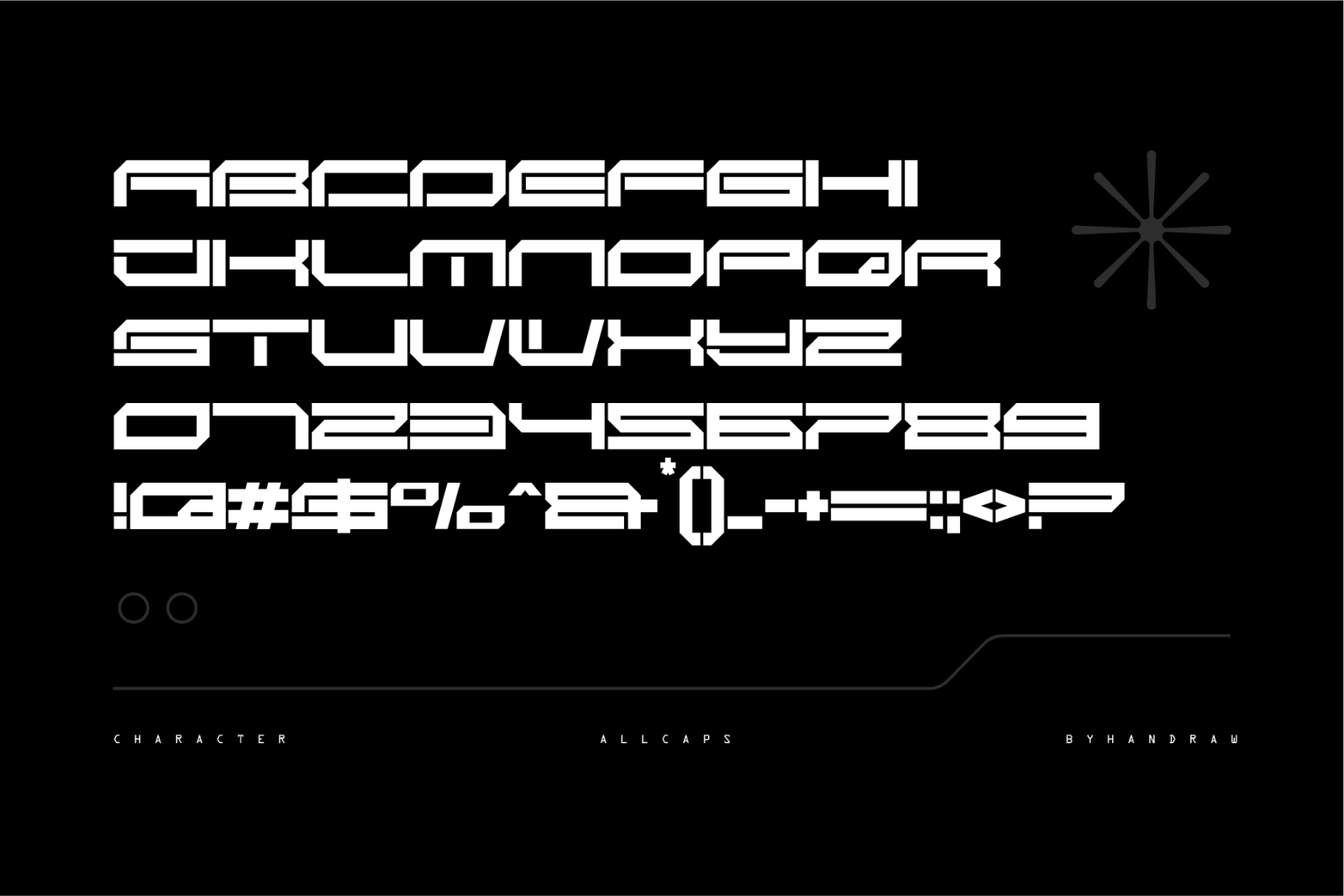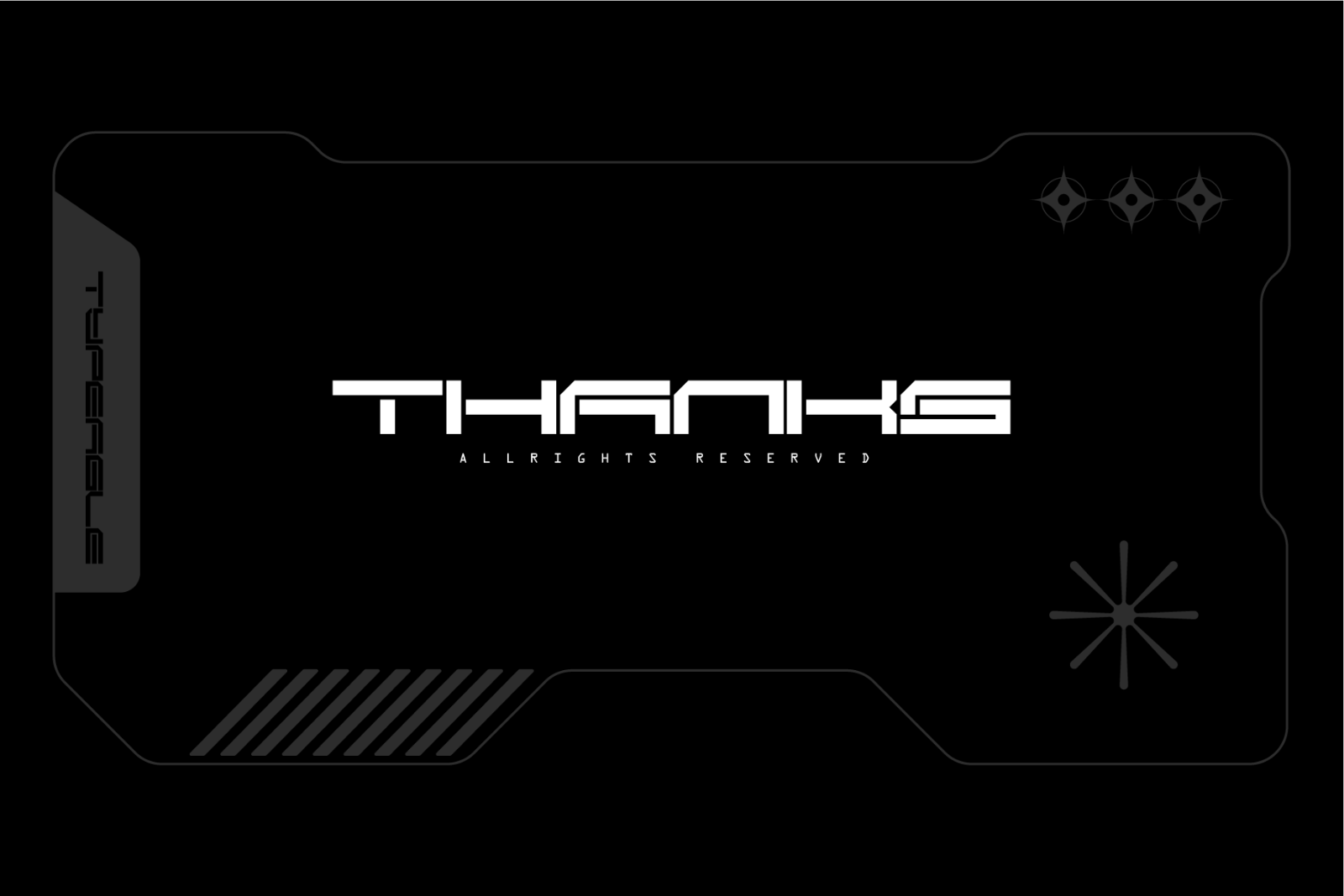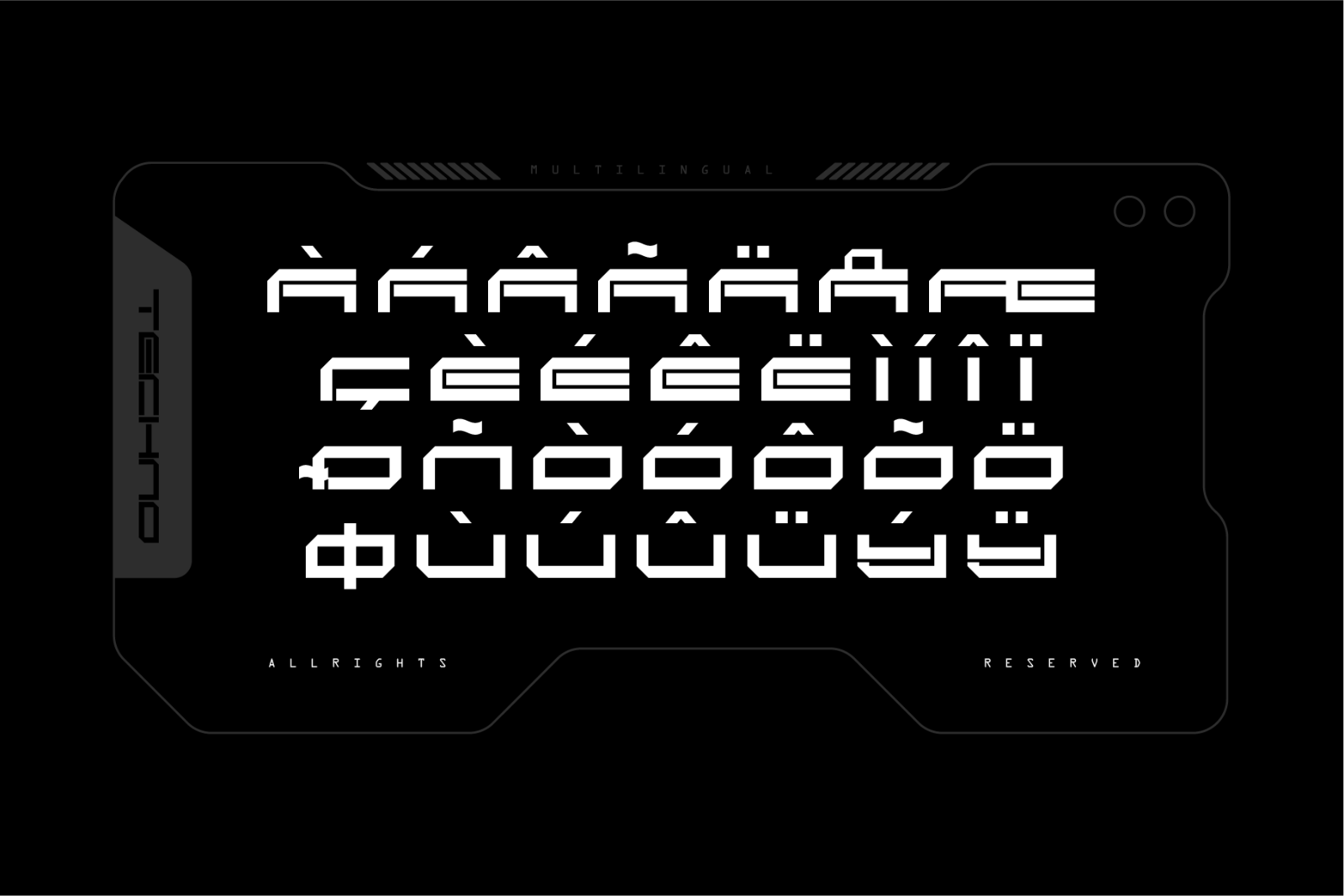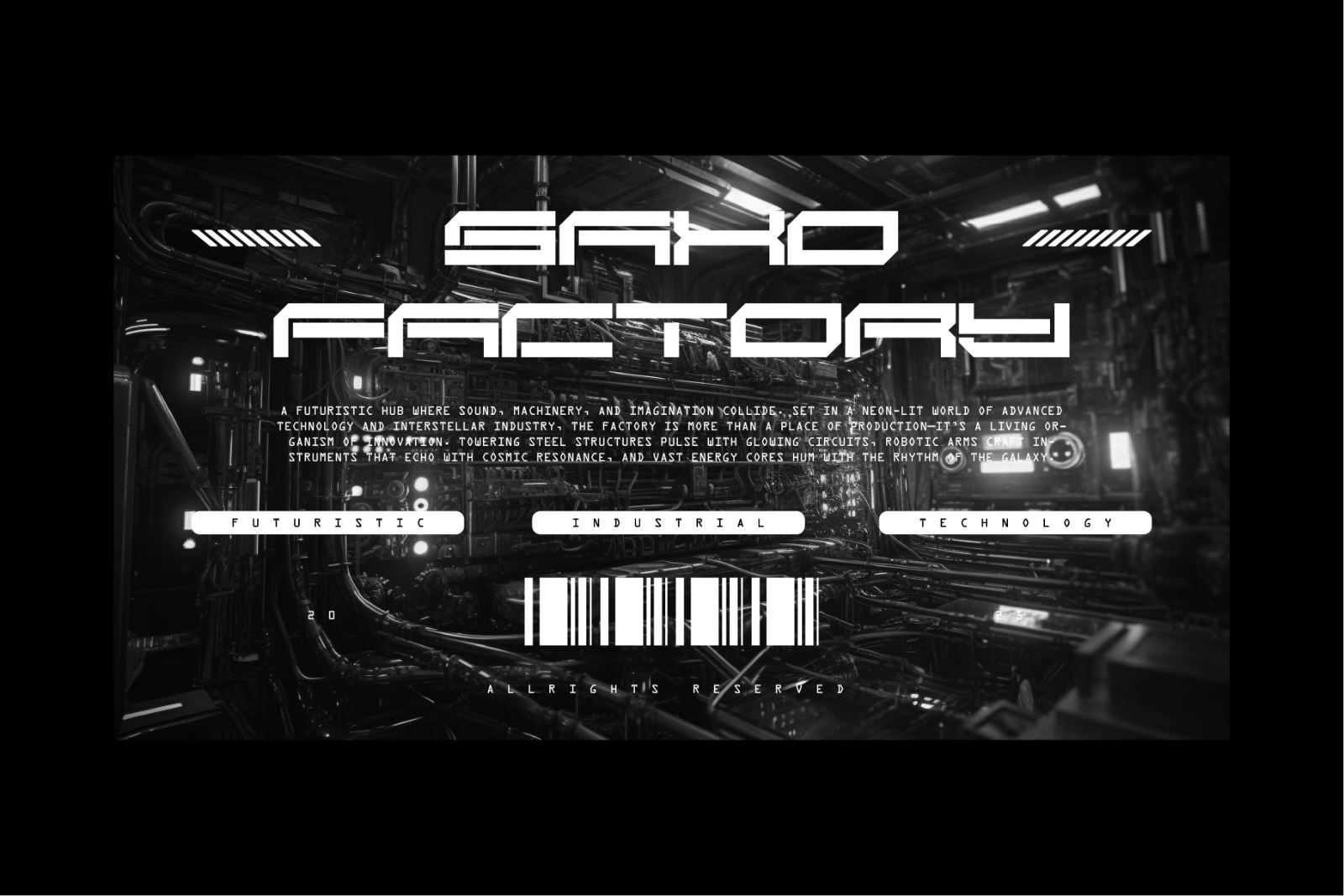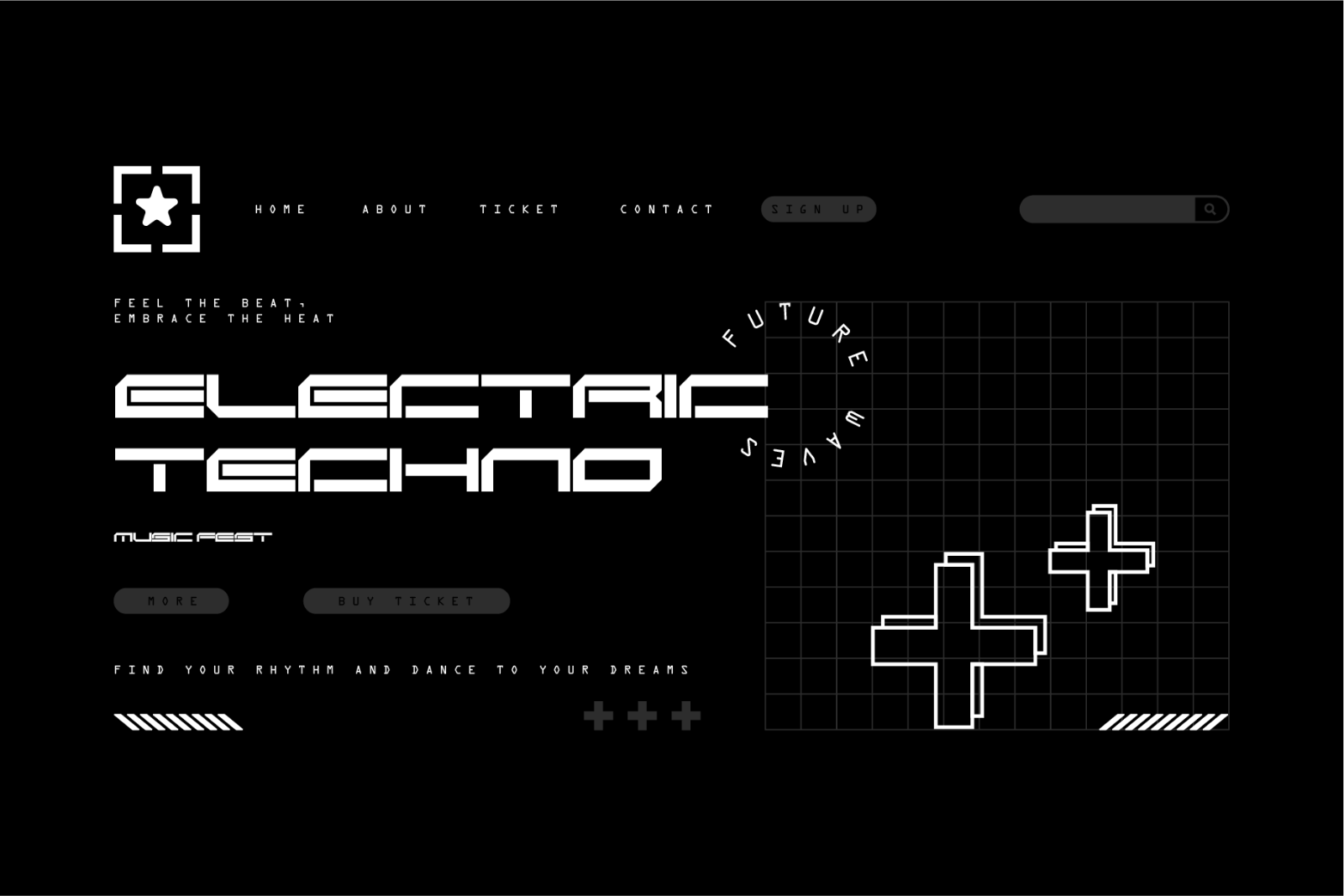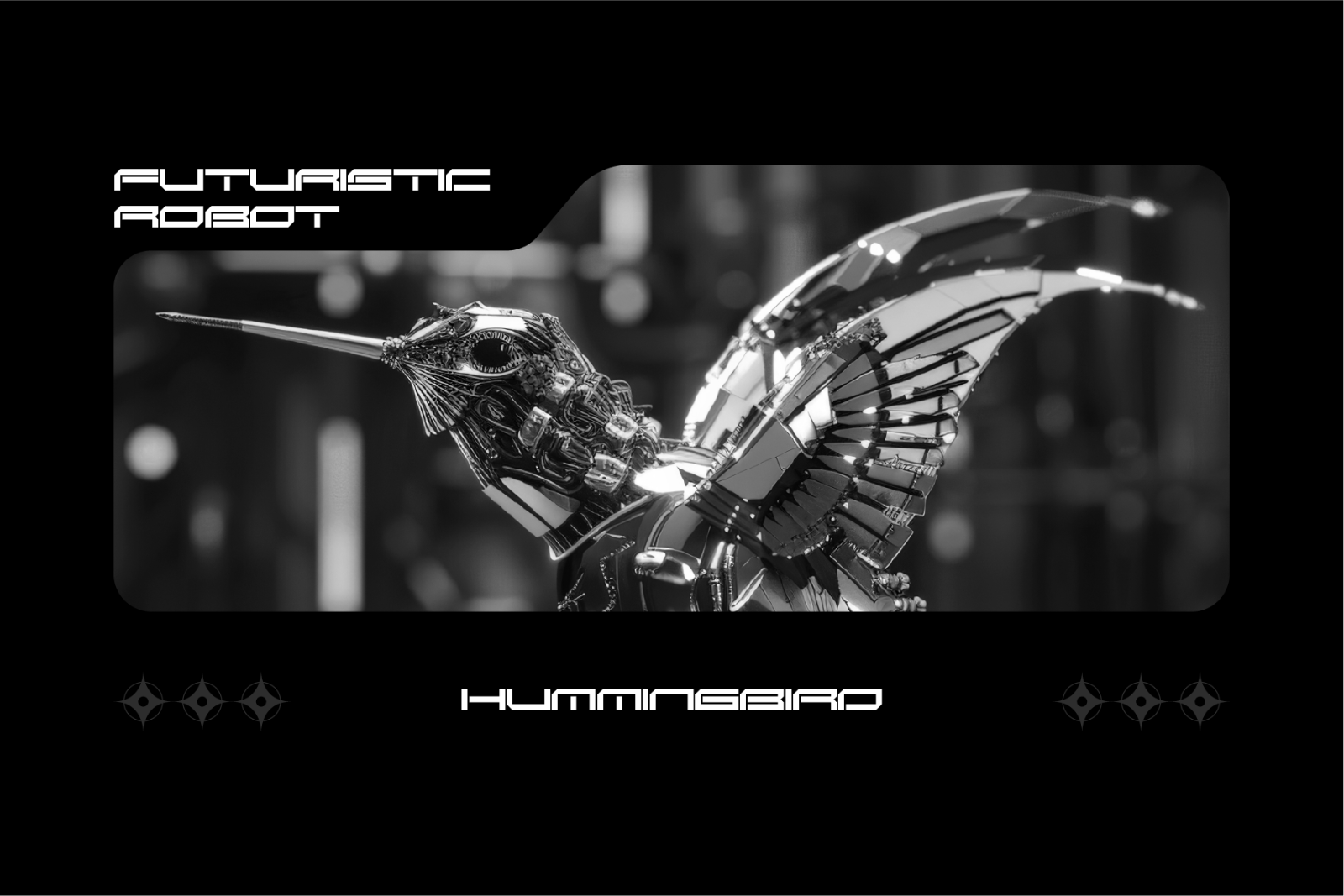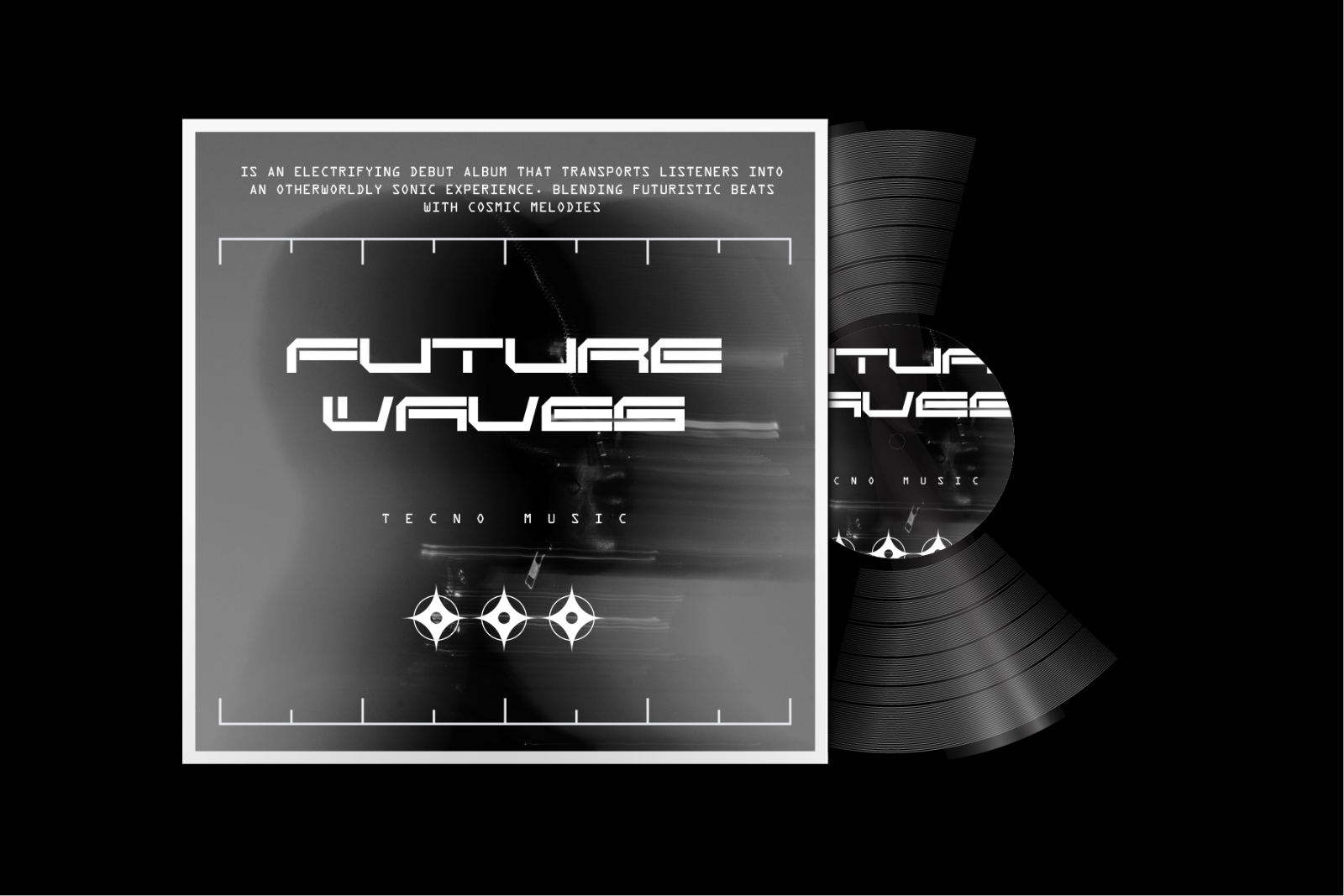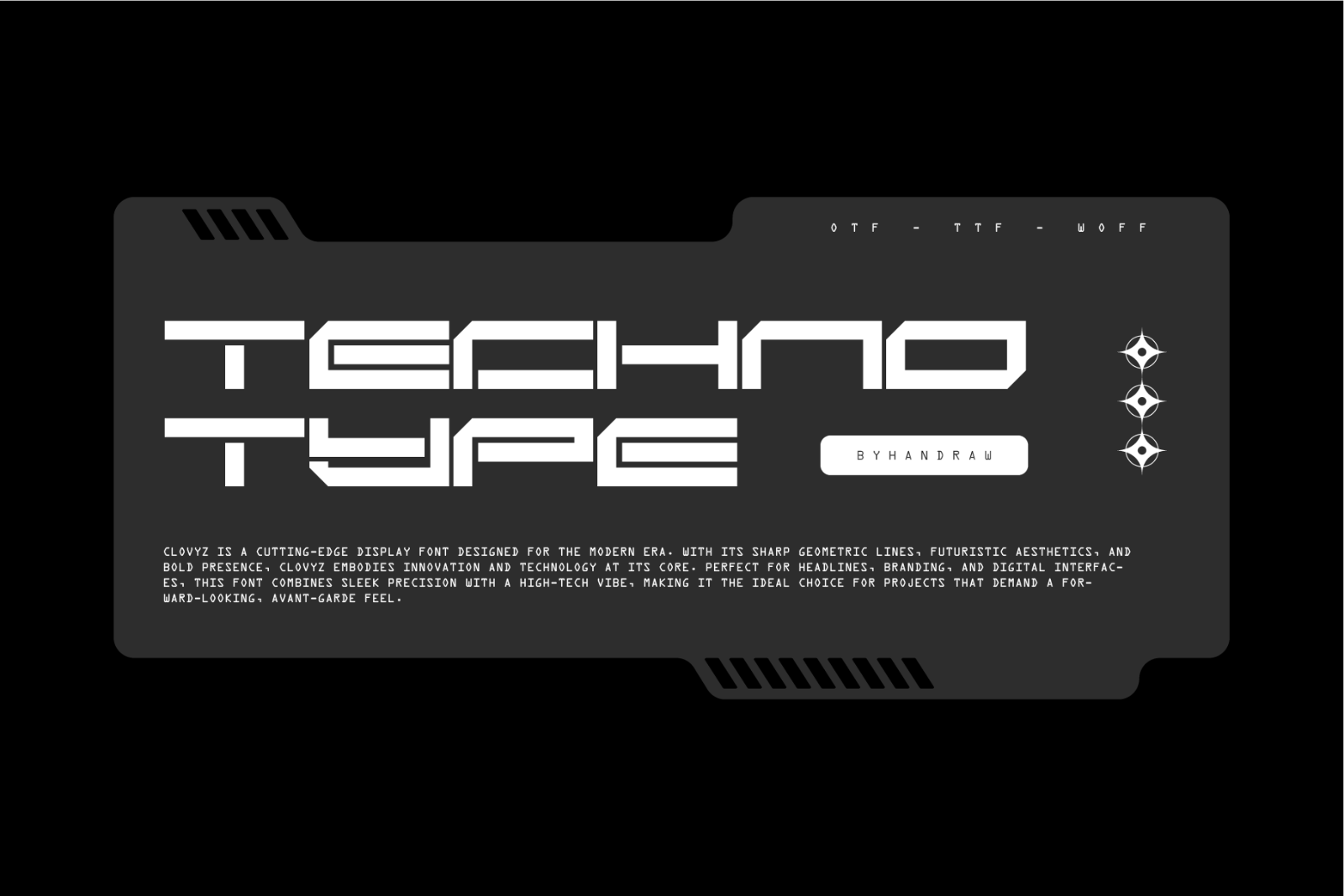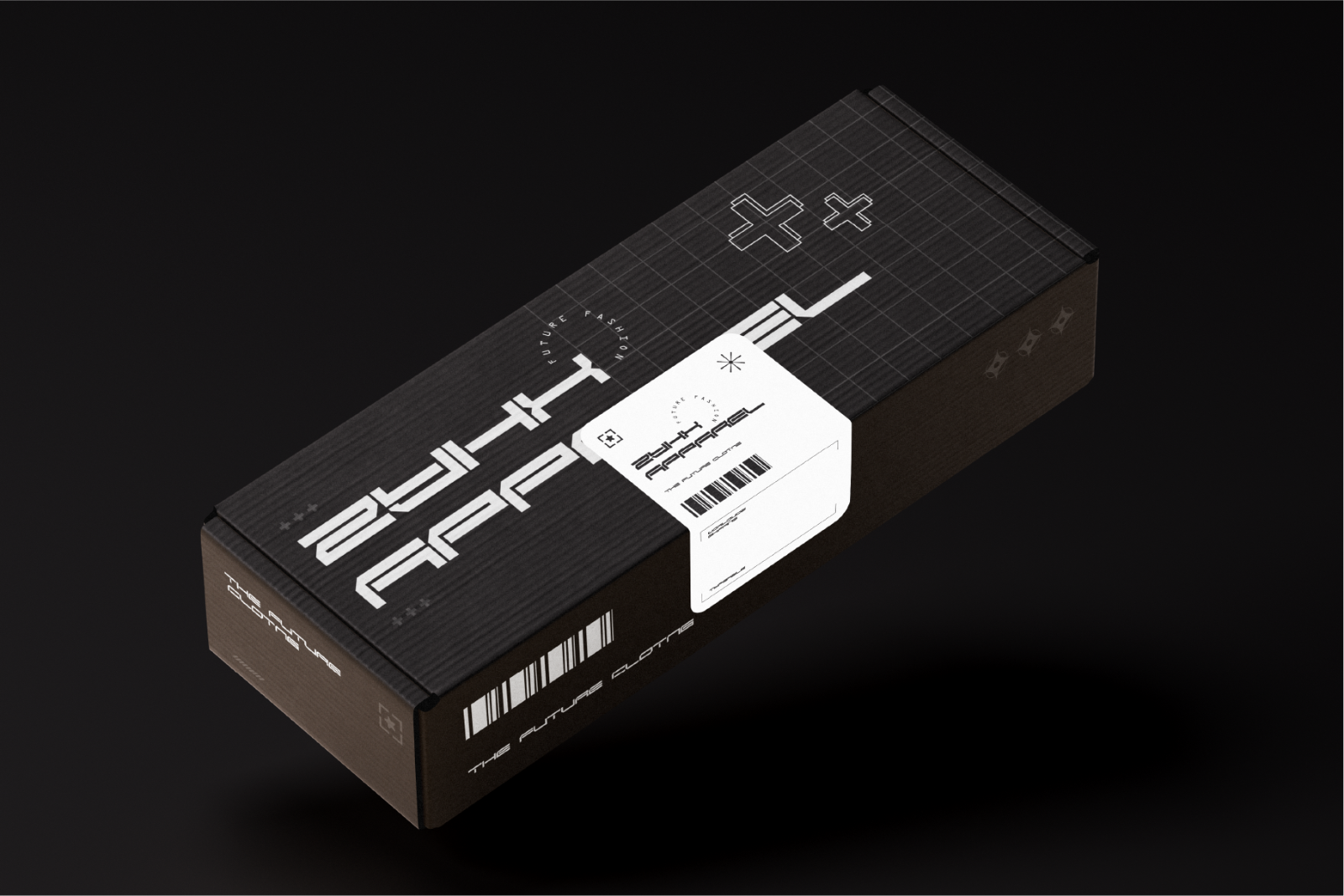
Clovyz is a cutting-edge display font designed for the modern era. With its sharp geometric lines, futuristic aesthetics, and bold presence, Clovyz embodies innovation and technology at its core. Perfect for headlines, branding, and digital interfaces, this font combines sleek precision with a high-tech vibe, making it the ideal choice for projects that demand a forward-looking, avant-garde feel.